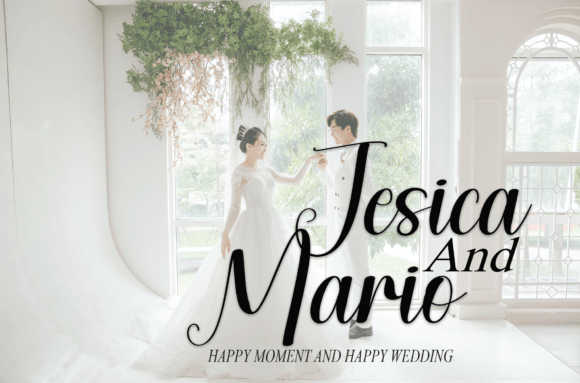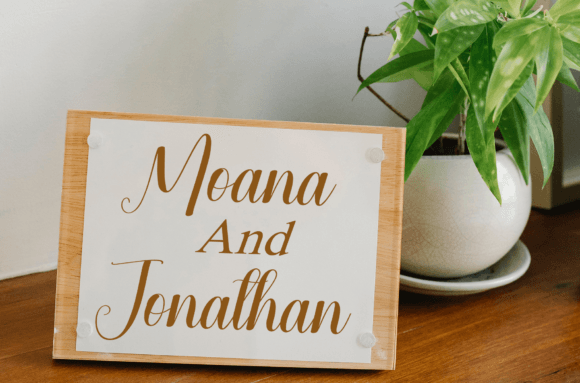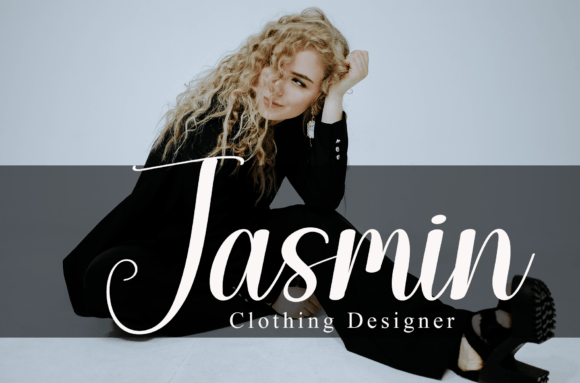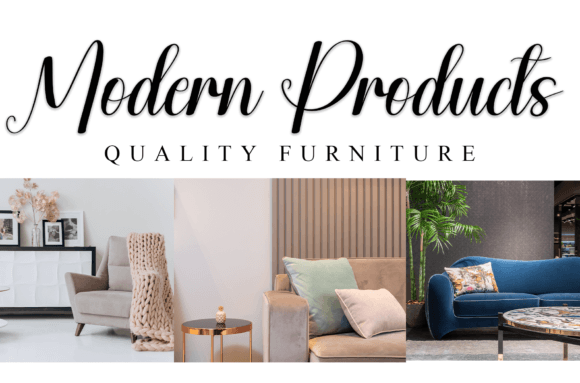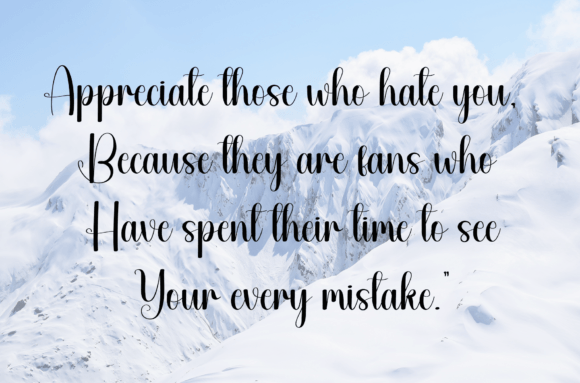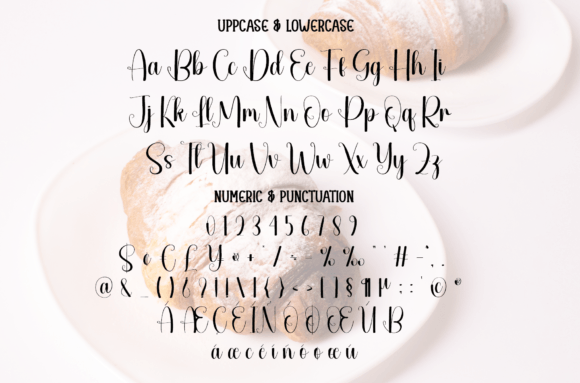
Bakery Font: The Sweetest Addition to Your Design Collection
Are you a designer or crafter looking for a font that adds a touch of warmth and friendliness to your projects? Look no further than the Bakery font! This sweet and friendly handwritten font is perfect for creating wedding invitations, cards, and other designs that require a playful and approachable feel.
What Makes Bakery Font So Special?
Bakery font is a fresh and neat handwritten font that is sure to capture the hearts of your audience. Its unique and elegant style makes it ideal for a variety of design projects, from formal wedding invitations to casual greeting cards. The font’s sweet and friendly tone is sure to add a touch of personality to your designs, making them stand out from the crowd.
Characteristics of Bakery Font
• Handwritten style: Bakery font has a beautiful, handwritten style that gives it a personal and approachable feel.
• Sweet and friendly tone: The font’s tone is sweet and friendly, making it perfect for designs that require a playful touch.
• Fresh and neat: The font is fresh and neat, with clean lines and a elegant style that makes it easy to read.
• Versatile: Bakery font is versatile and can be used for a variety of design projects, from wedding invitations to greeting cards.
Uses of Bakery Font
Bakery font is perfect for a variety of design projects, including:
• Wedding invitations: The font’s elegant and sweet style makes it perfect for wedding invitations, adding a touch of romance and whimsy to your designs.
• Greeting cards: Bakery font is ideal for creating greeting cards for special occasions, such as birthdays, anniversaries, and holidays.
• Social media graphics: The font’s playful and friendly tone makes it perfect for social media graphics, such as Facebook posts and Instagram stories.
• Branding and packaging: Bakery font can also be used for branding and packaging design, adding a touch of personality to your products.
Why Designers and Crafters Love Bakery Font
Designers and crafters love Bakery font for its unique and elegant style, as well as its versatility and ease of use. The font is easy to read and works well in a variety of design projects, from print to digital. Additionally, the font’s sweet and friendly tone makes it perfect for designs that require a playful touch.
Tips for Using Bakery Font
• Pair with other fonts: Bakery font pairs well with other fonts, such as serif and sans-serif fonts, to create a unique and interesting design.
• Use for headings and titles: The font’s elegant style makes it perfect for headings and titles, adding a touch of personality to your designs.
• Experiment with colors: Bakery font works well with a variety of colors, so don’t be afraid to experiment and find the perfect color scheme for your design.
In conclusion, Bakery font is a sweet and friendly handwritten font that is perfect for designers and crafters looking to add a touch of warmth and personality to their designs. With its unique and elegant style, versatility, and ease of use, Bakery font is sure to become a favorite in your design collection.